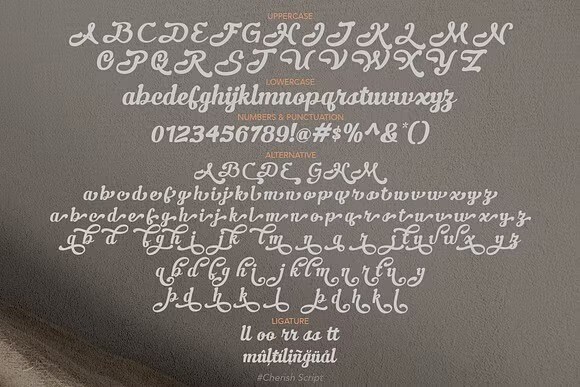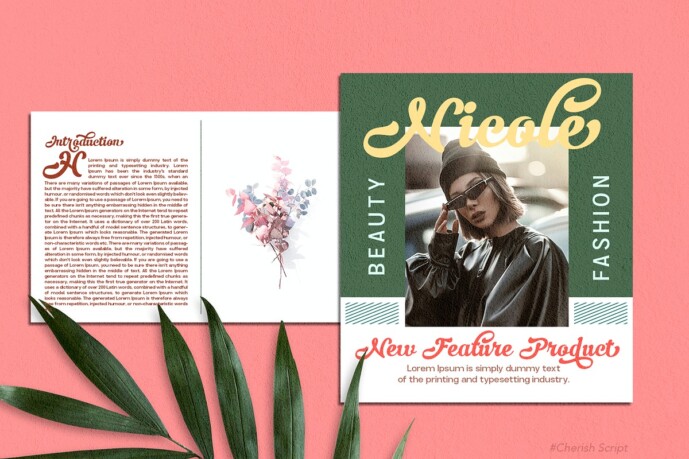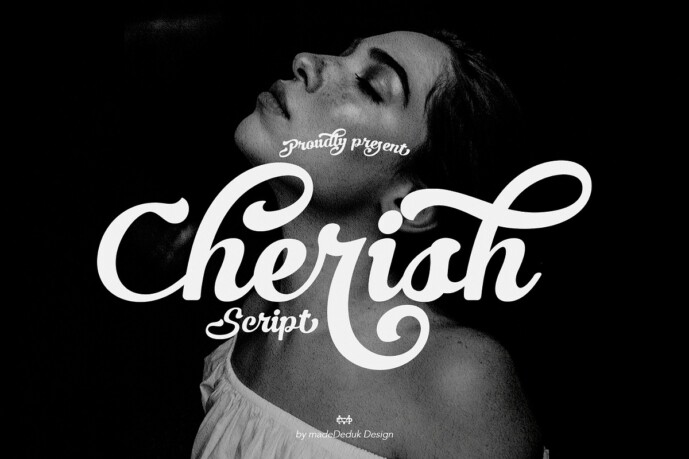
Cheris Font
Cheris Font is a script font comes with curly style with a lot alternative and ligature. This font perfect for poster design, book covers, merchandise, fashion brands, advertising, magazines, album covers, wedding invitation and more.